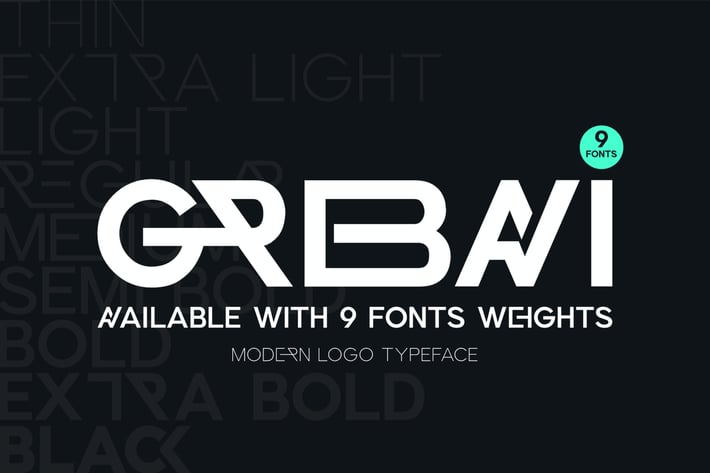
Grebavi | Modern Logo Typeface
Grebavi is a modern, well-balanced sans serif font with a minimalist and iconic design. Its unique character allows for easy creation of diverse variations and shapes in seconds by selecting from its ligature options. This versatile font is perfect for branding projects, logos, poster designs, social media posts, advertisements, product packaging, product designs, labels, photography, watermarks, invitations, stationery, and more, all while maintaining high legibility.
- Ligature & Alternates Characters
- Complete Character Set (A-Z)